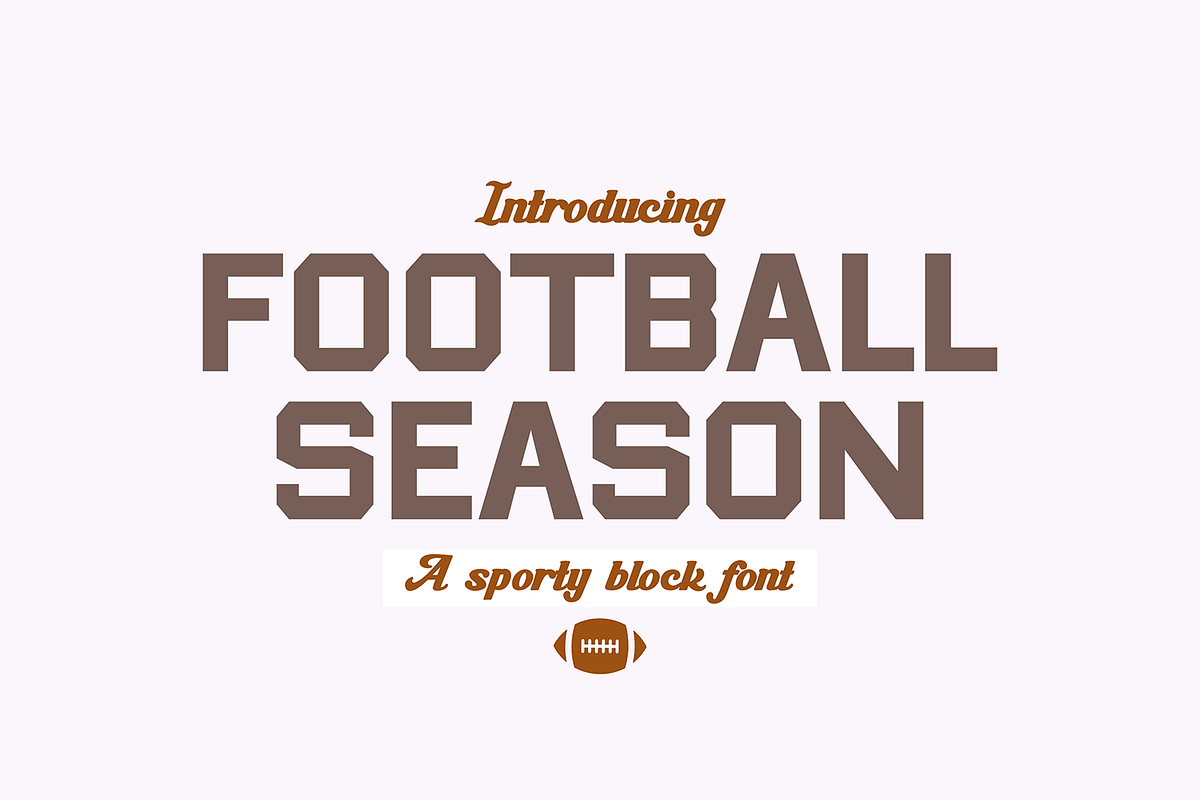
FOOTBALL SEASON Sporty Block Font Free Download
FOOTBALL SEASON – Sporty Block Font Free Download
FOOTBALL SEASON – Sporty Block Font Free Download is a bold and powerful display font designed to capture the energy and excitement of sports. With its sharp, geometric shapes and athletic vibe, this font is perfect for team logos, jerseys, sports posters, event flyers, and branding related to football or any other high-energy sports.
Its thick, blocky letterforms give it a strong presence that demands attention, making it ideal for designs that need to convey power, speed, and passion. Whether you’re creating merchandise for a sports event or designing a dynamic promotional graphic, Football Season adds a competitive edge to your typography.